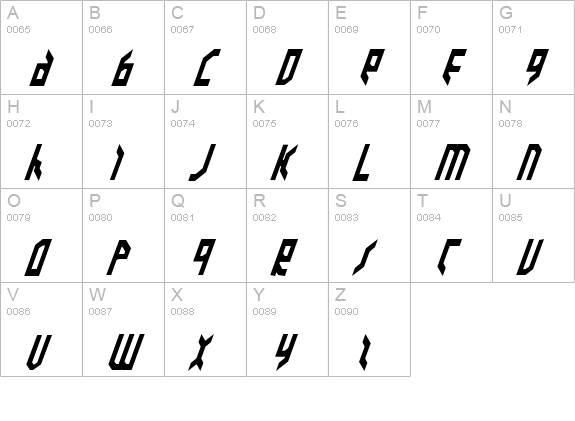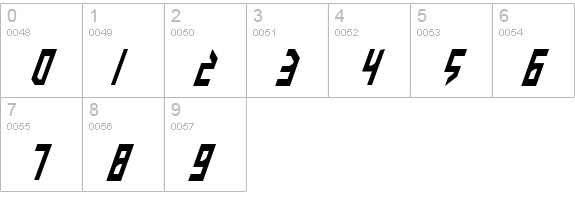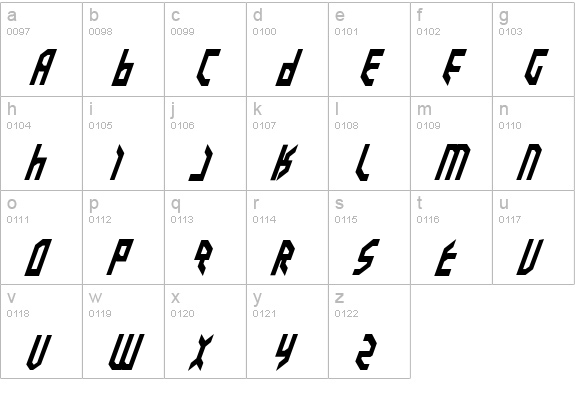
Valkyrie Bold Italic is a strong, high-contrast, italic variant in the Valkyrie typeface family \xE2\x80\x94 well suited to headlines, attention-grabbing titles, and strong calls-to-action.
Valkyrie Bold Italic font exudes a sense of strength and elegance with its bold and slanted design. The sleek and modern look of this typeface makes it perfect for adding a touch of sophistication to any project. Whether you're designing a logo, poster, or website, Valkyrie Bold Italic will make a bold statement. What's even better is that this stunning font is available for free download at FontsMarket.com. You can easily elevate your designs with the unique flair that Valkyrie Bold Italic brings. Don't miss out on the opportunity to enhance your creative endeavors with this exceptional typeface. Download Valkyrie Bold Italic now and let your creativity soar!